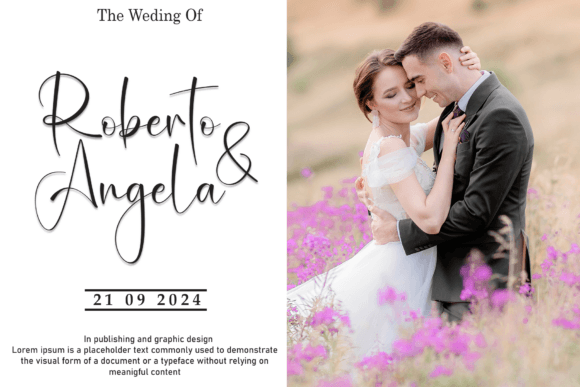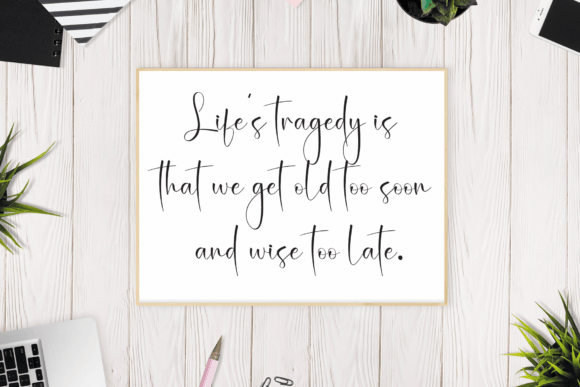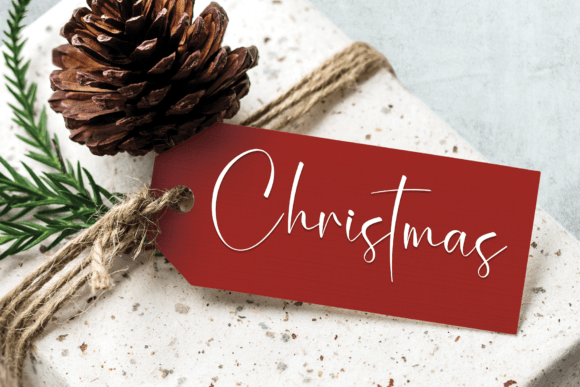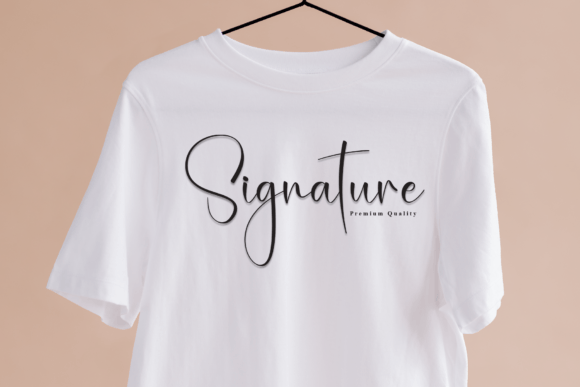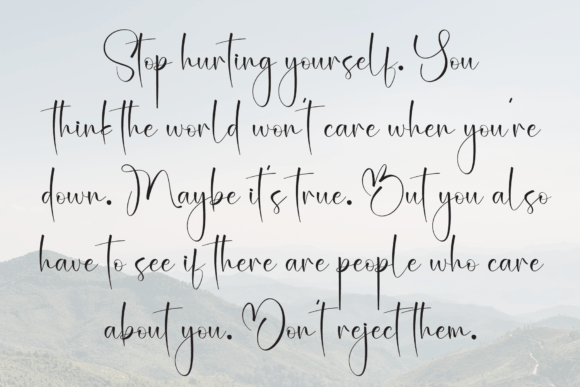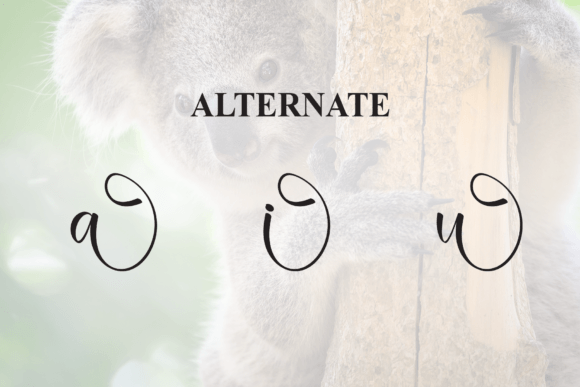
Koala Font – Free Download
Introduction to Koala Font
Koala is a lovely and timeless handwritten font.
Key Features of Koala Font
Why Choose Koala Font?
Koala Font offers exceptional quality and versatility, making it a valuable addition to your design toolkit. Whether you’re creating for personal projects or commercial use, Koala Font delivers professional results.